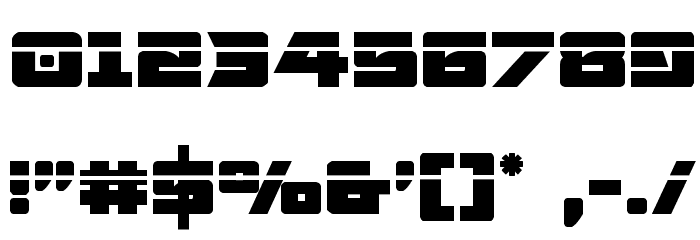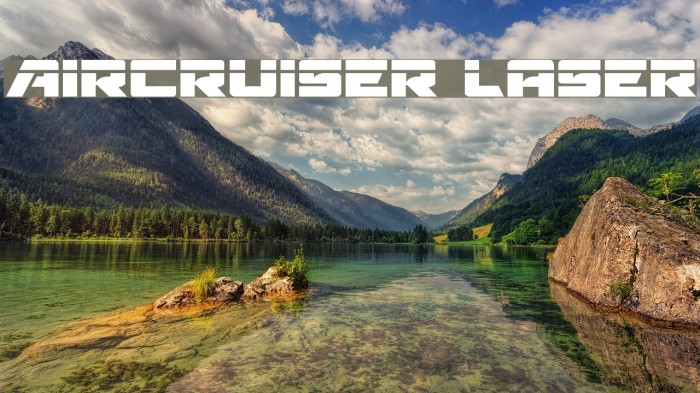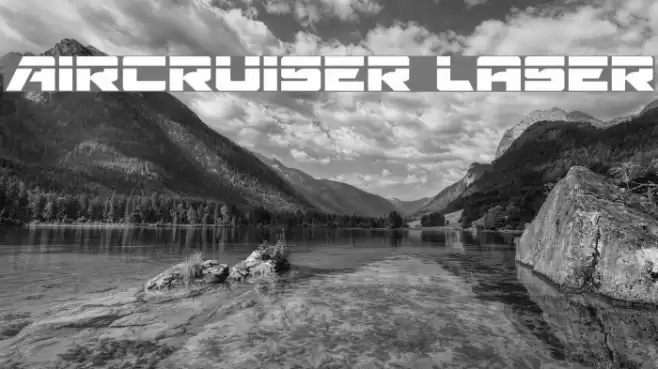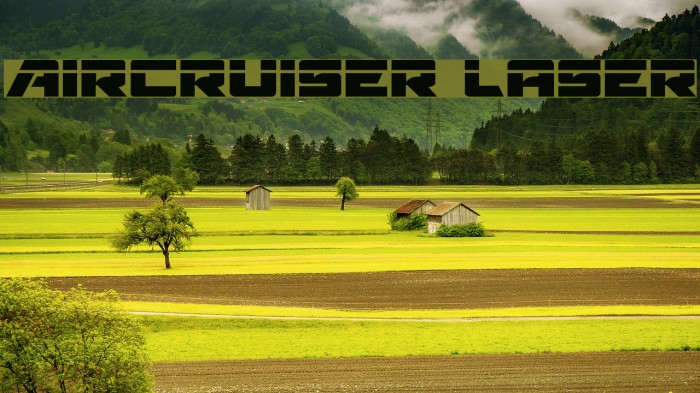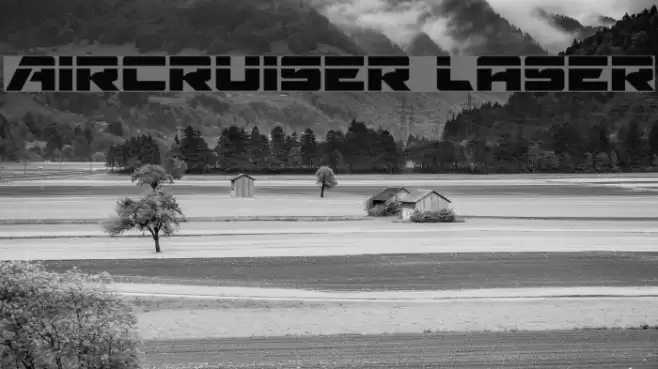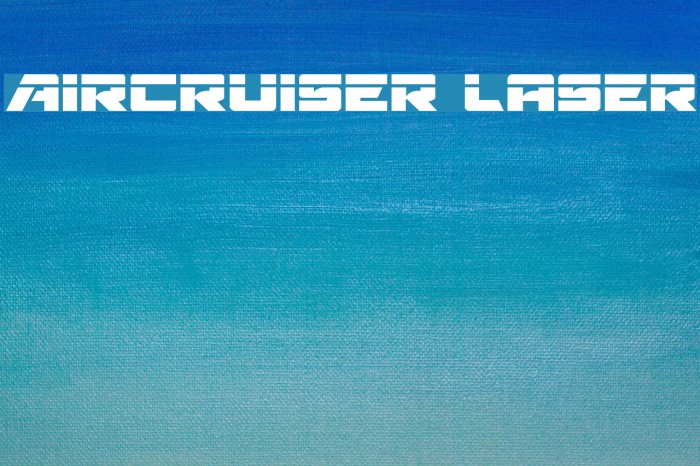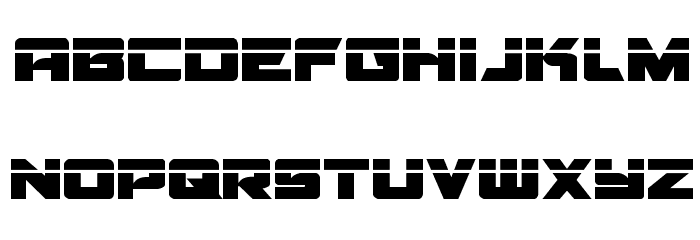
Aircruiser Laser Font
Aircruiser Laser Description
This font features a bold, futuristic design with sharp, angular edges and a geometric structure. The characters are constructed with a blocky appearance, giving them a strong and impactful presence. The uppercase and lowercase letters maintain a consistent style, with the lowercase slightly smaller but equally bold. Numbers and special characters follow the same design principles, ensuring uniformity across all elements. The font's unique style is reminiscent of digital or sci-fi themes, making it ideal for projects that require a modern and edgy look.
A bold, futuristic font with sharp, angular edges and a geometric design from Uncategorized fonts.
• Proposed Projects: Ideal for sci-fi themed designs, video game titles, tech branding, and futuristic posters.
• Overall Style: Futuristic
• Use Case: Headlines, Logos